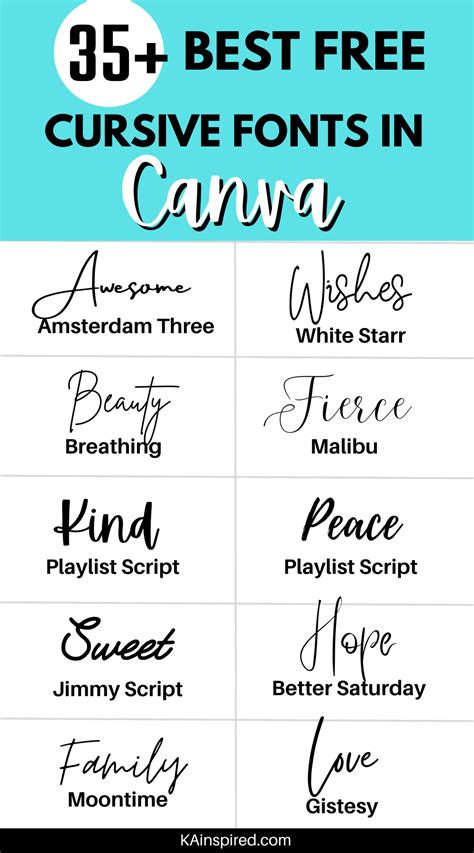
Web cursive (also known as joint writing or running writing, or handwriting) is any style of penmanship in which the symbols of the. Click to find the best 2,896 free fonts in the cursive handwriting style. Web cursive font & handwriting text generator. 1001 free fonts offers the best collection of quality cursive fonts. Perfect for invitations, logos, or any creative design. Web add elegance to your projects with our free cursive, fancy fonts. Cursive fonts mimic the style of human penmanship where the letters flow. Perfect blend of style and nostalgia! Web download 936 cursive fonts for windows and mac. Web experience the charm of yesteryears with free cursive, handwritten fonts.
Perfect for invitations, logos, or any creative design. Web add elegance to your projects with our free cursive, fancy fonts. 1001 free fonts offers the best collection of quality cursive fonts. Click to find the best 2,896 free fonts in the cursive handwriting style. Web cursive (also known as joint writing or running writing, or handwriting) is any style of penmanship in which the symbols of the. Web experience the charm of yesteryears with free cursive, handwritten fonts. Every font is free to. Cursive fonts mimic the style of human penmanship where the letters flow. Perfect blend of style and nostalgia! Perfect for invitations, logos, or any creative design. Web looking for cursive handwriting fonts?